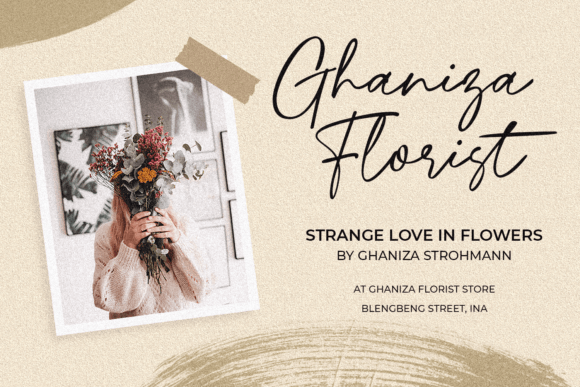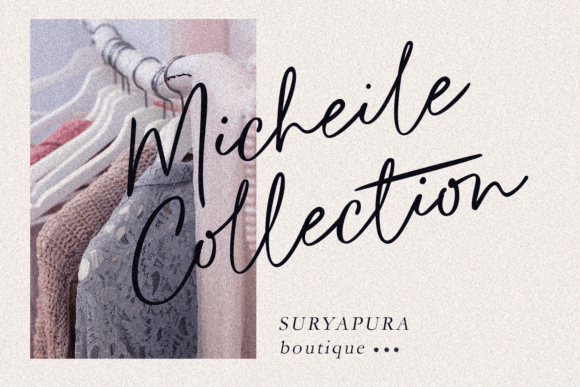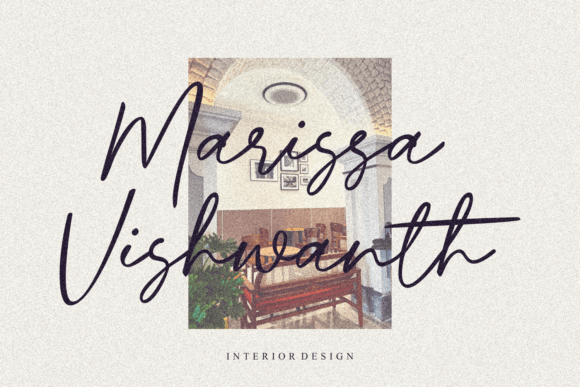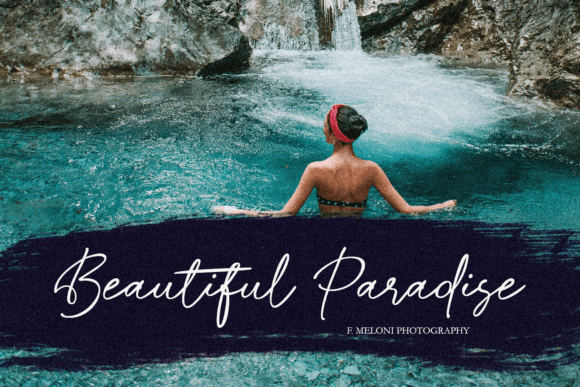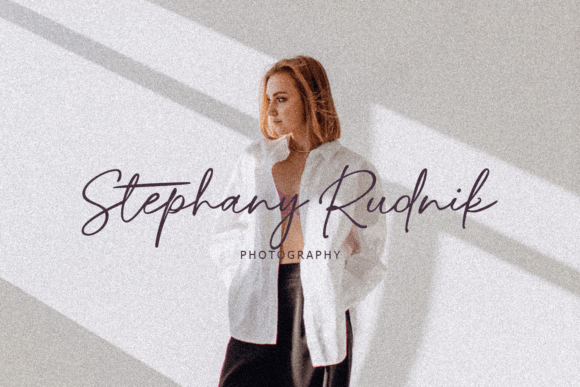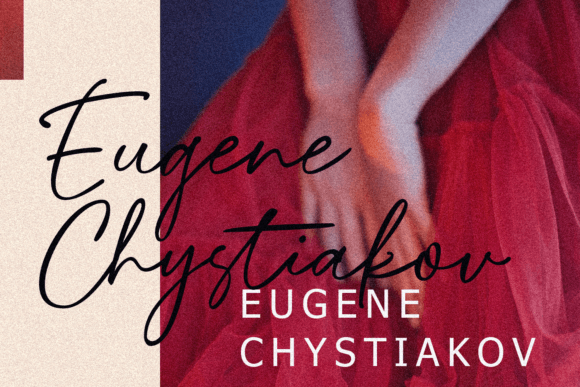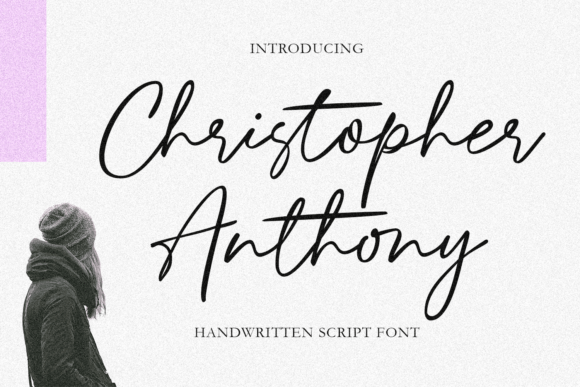
Discover the Charm of Christopher Anthony Font: A Natural Handwritten Typeface
Are you a designer or crafter looking for a unique and elegant font to elevate your creative projects? Look no further than the Christopher Anthony Font, a stunning natural handwritten typeface that is perfect for a wide range of applications. From wedding invitations and templates to headlines, branding, and logos, this beautiful font is sure to add a touch of sophistication and whimsy to your work.
The Beauty of Christopher Anthony Font
Christopher Anthony Font is a carefully crafted typeface that boasts a beautiful inky texture in its letter form. This distinctive texture gives the font a warm, organic feel that is reminiscent of handwritten scripts. The natural, flowing lines of the font make it perfect for creating elegant and sophisticated designs that are sure to capture the attention of your audience.
One of the standout features of Christopher Anthony Font is its versatility. This font is suitable for a wide range of purposes, including:
- Templates and branding materials
- Headlines and titles
- Logos and icons
Whether you’re creating a formal invitation or a playful logo, Christopher Anthony Font is the perfect choice. Its elegant, cursive lines and inky texture make it suitable for both formal and informal designs.
Why Choose Christopher Anthony Font?
So why choose Christopher Anthony Font for your next design project? Here are just a few reasons why this font stands out:
- Unique and distinctive: Christopher Anthony Font has a one-of-a-kind look that will set your designs apart from the crowd.
- Elegant and sophisticated: The font’s natural, flowing lines make it perfect for creating elegant and sophisticated designs.
- Versatile: This font can be used for a wide range of purposes, from formal invitations to playful logos.
- Easy to read: Despite its elegant lines, Christopher Anthony Font is easy to read, making it perfect for body text as well as headlines.
Tips for Using Christopher Anthony Font
To get the most out of Christopher Anthony Font, here are a few tips to keep in mind:
- Use it sparingly: While Christopher Anthony Font is beautiful, it can be overpowering if used too much. Use it sparingly to add a touch of elegance to your designs.
- Experiment with colors: The inky texture of Christopher Anthony Font looks beautiful in a range of colors. Experiment with different hues to find the perfect look for your design.
- Pair it with other fonts: Christopher Anthony Font pairs beautifully with other fonts. Try pairing it with a clean sans-serif font for a striking contrast.
In conclusion, Christopher Anthony Font is a stunning natural handwritten typeface that is perfect for designers and crafters looking to add a touch of elegance and whimsy to their creative projects. With its beautiful inky texture, versatile design, and easy-to-read lines, this font is sure to become a favorite in your design arsenal. So why wait? Download Christopher Anthony Font today and start creating beautiful, one-of-a-kind designs that will capture the attention of your audience.